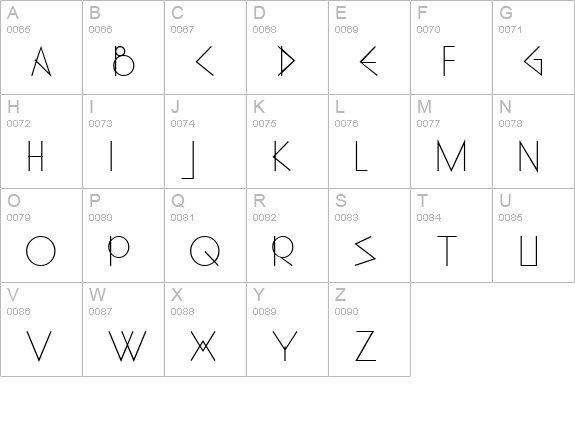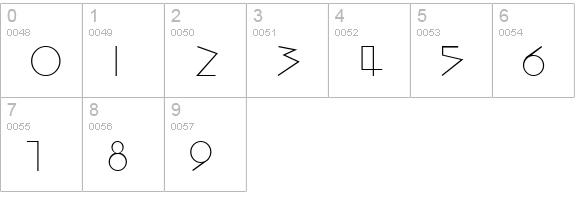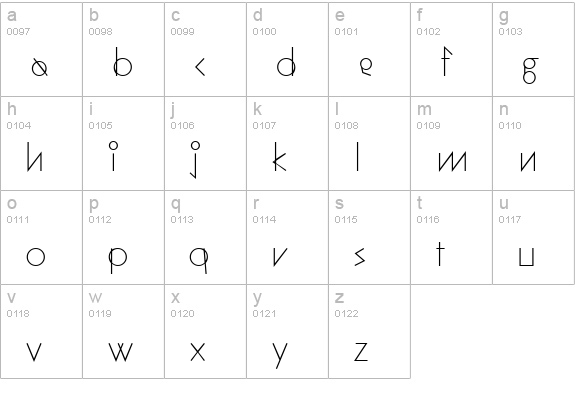
CompassOne Font Details
CompassOne is a modern and sleek font that exudes elegance and sophistication. With its clean lines and contemporary style, this font is perfect for adding a touch of class to any project. Whether you're designing a logo, creating a website, or crafting a marketing campaign, CompassOne is sure to make a lasting impression. What sets CompassOne apart is not only its stunning design but also the fact that it is available for free download at FontsMarket.com. That's right, you can elevate your designs with this high-quality font without having to spend a dime. So why wait? Download CompassOne today and see for yourself the impact it can make on your projects.